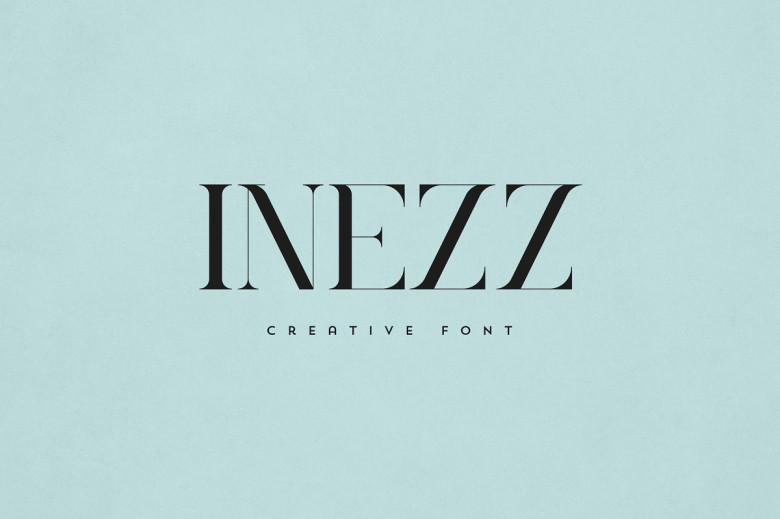
Inezz Font
Inezz is the perfect font to give your typography that unique touch! A versatile yet elegant serif font, Inezz will add elegance and class to any logo, branding or text project – perfect for branding projects, packaging designs, homewares or magazine headers or simply as text over any background image.
Inezz Serif Font